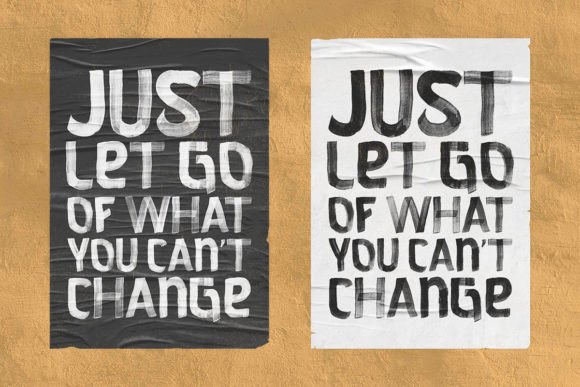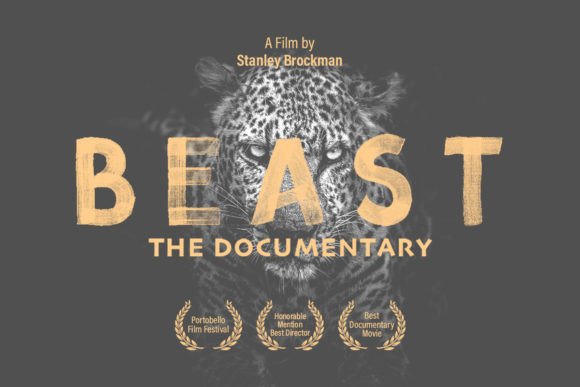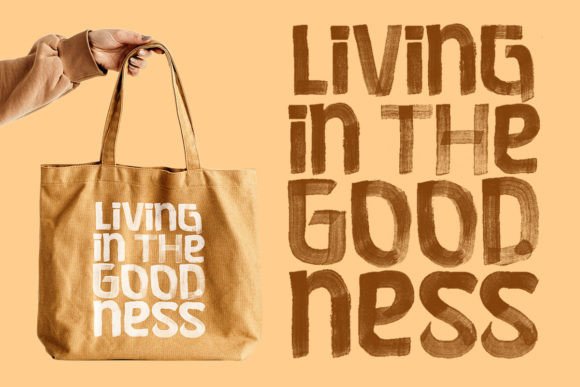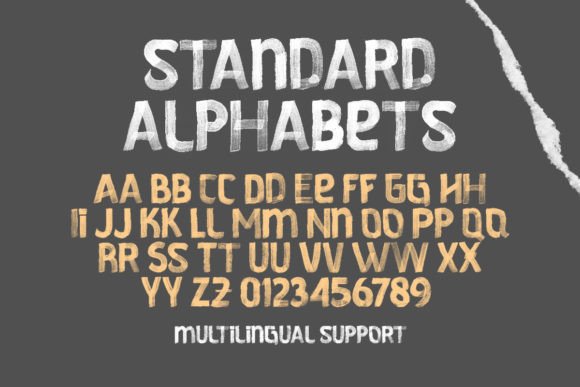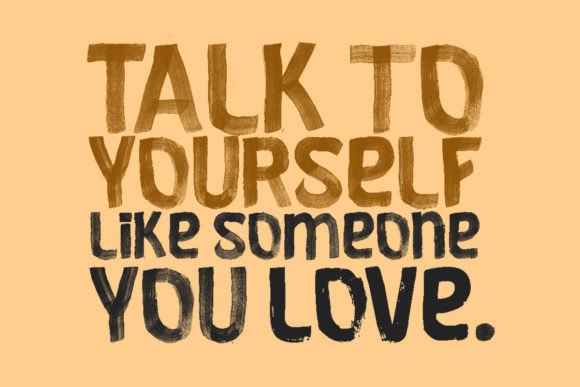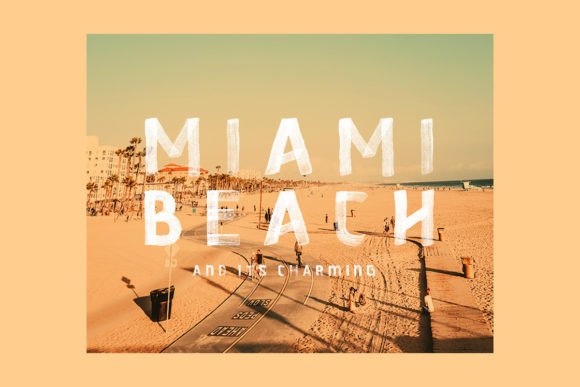
Introduction to Self Love Font
As a designer, there’s nothing quite like the thrill of seeing a project come together. You’ve spent hours pouring over every detail, from the color palette to the typography. And then, just when you think it’s all done, you stumble upon the perfect font – the one that takes your design from good to great. For many creatives, that perfect font is the Self Love Font, a cool and modern textured brush display font that adds a touch of sophistication to any project.
With its high-quality design and transparent background, the Self Love Font is a valuable resource for any designer looking to elevate their creative project. Whether you’re working on a free download or a paid project, this font is sure to make a statement. And the best part? It’s easy to add to your design arsenal, thanks to its free availability. So why settle for anything less when you can add the Self Love Font to your toolkit and watch your designs soar?
Key Features of Self Love Font
- Unique, hand-drawn design with a focus on self-care and empowerment, perfect for a creative project promoting positivity and self-love.
- Includes 12 individual font styles with varying line weights and textures, allowing for flexibility and customization in your design.
- Designed to be a versatile design resource, suitable for a range of creative projects, from social media graphics to print materials and more.
- Perfect for designers, artists, and creatives looking for a unique and meaningful font to add to their design arsenal.
Honest Review: Self Love Font
I recently came across the Self Love Font and I must say it’s been a breath of fresh air for my creative projects. As a designer, I’m always on the lookout for high-quality design resources that can elevate my work.
- High-quality font design that’s both modern and stylish
- Wide range of styles and weights to choose from
- Perfect for creating engaging and emotive designs
- Limited in terms of language support, which may be a concern for international projects
Overall, I’m thoroughly impressed with the Self Love Font. It’s a fantastic design resource that’s perfect for personal or creative projects. While it may have some limitations, its high-quality design and versatility make it a valuable addition to any designer’s toolkit.
Getting the Most Out of the Self Love Font
Use the Self Love Font in combination with other design resources, such as graphics and images, to create a visually appealing design. Experiment with different font styles and sizes to add depth and interest to your design.
The Self Love Font is perfect for creating inspirational quotes, social media graphics, and promotional materials. Its high-quality design and transparent background make it suitable for a variety of creative projects.